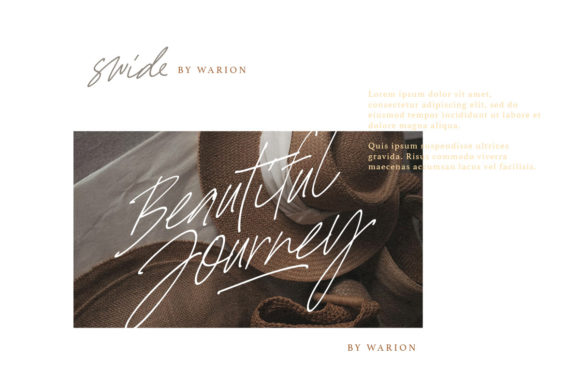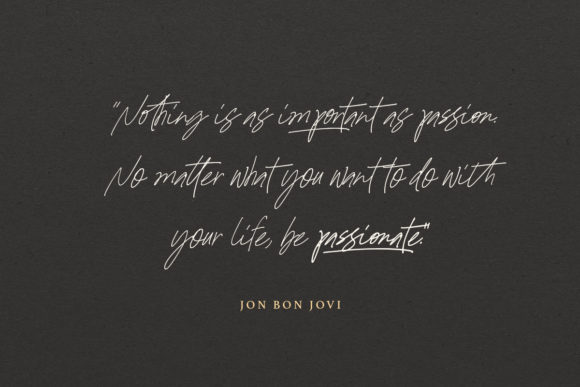
Another Passion Font
db-ku.com - Script & Handwritten -- Another Passion is a lovely and delicate script font that exudes elegance and class. It will add a luxury spark to any design project that you wish to create! This font is PUA encoded which means you can access all of the amazing glyphs and ligatures with ease!